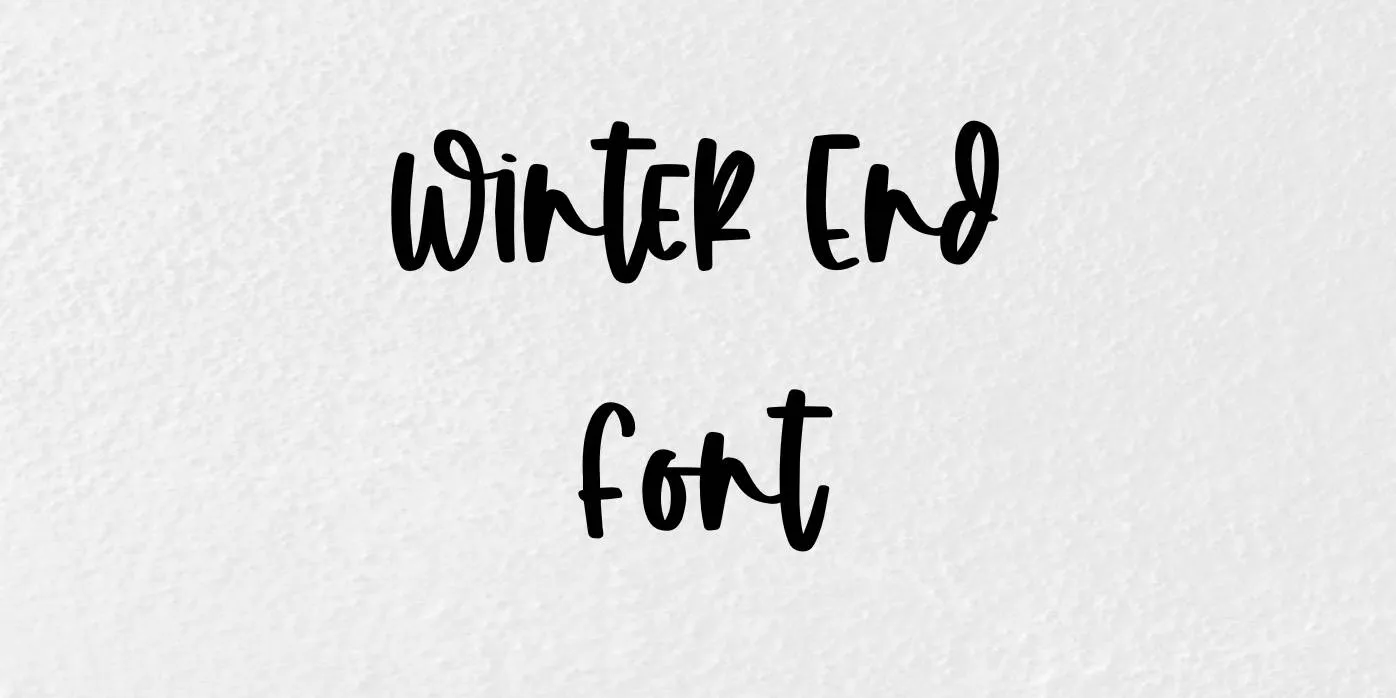
Winter End Font
You are going to read about the famous handwritten typeface. Winter End Font is a handwritten type of font. Abo Daniel Studio is the designer of this texture. The characters of this typeface are amazing because they contain high readability and a fantastic look.
There are amazing glyphs for this typeface and 206 are in numbers. This typeface supports all special characters. The 9 number in this font looks like the g alphabet as you can see in the image. The license of this texture allows only personal use of this typeface for free.